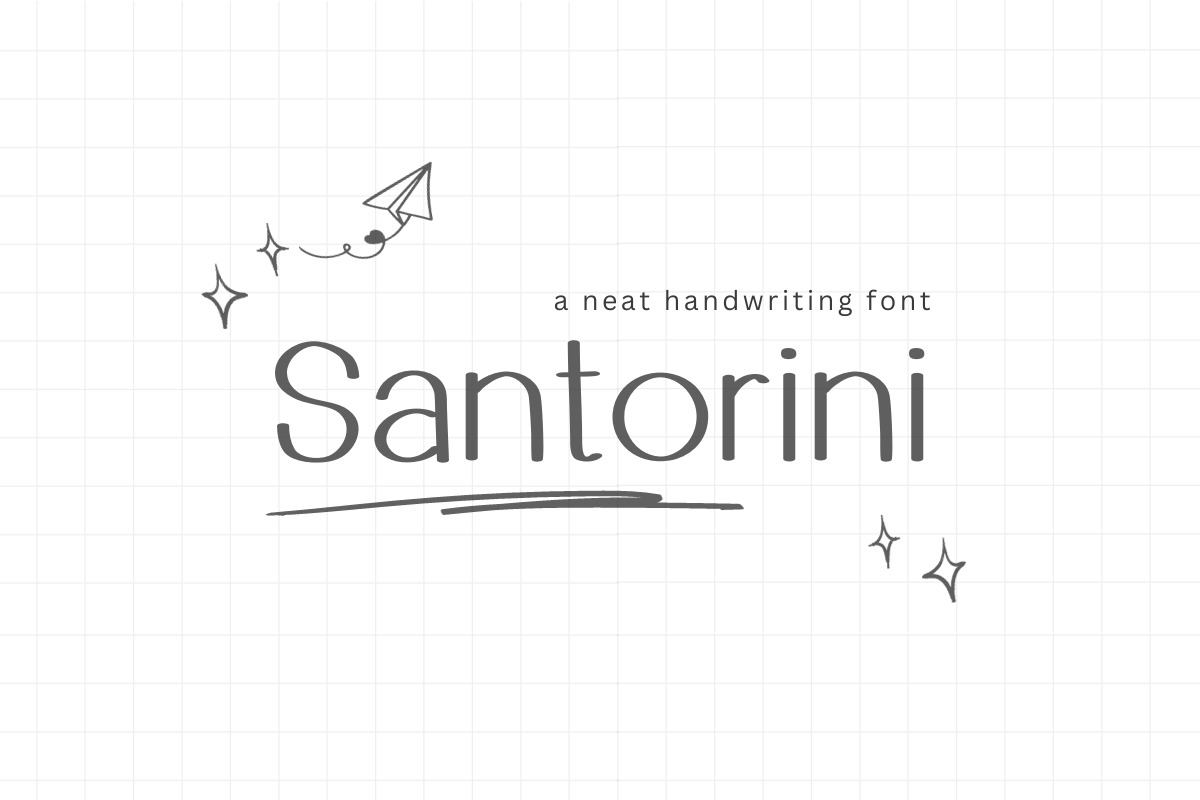
The Santorini - Sans Serif Font Free Download is a clean and modern sans-serif typeface that brings a fresh, minimalist touch to your designs. Perfect for creating sleek logos, branding materials, websites, posters, and social media graphics, this font offers a contemporary and professional appearance. Please note, for commercial use, a license must be purchased. You can download it for free for testing purposes.
With its sharp lines and balanced design, the Santorini - Sans Serif Font Free Download is ideal for projects that need a modern, polished look. Whether you’re designing for corporate branding, digital media, or marketing materials, this font will give your work a stylish and clean edge.